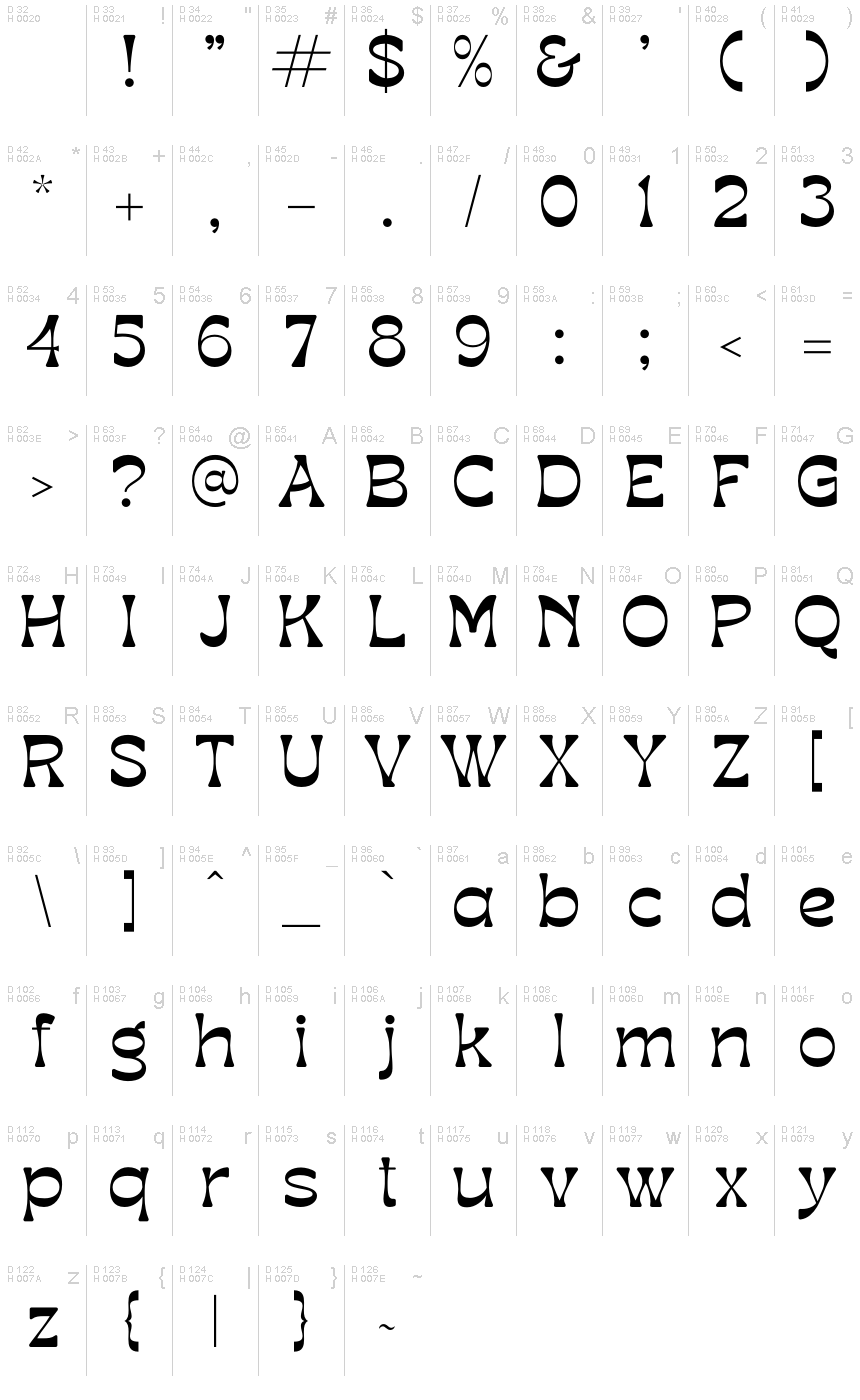
RONDKER THROME
Rondker Throme, a captivating display font crafted by Storytype Studio, exudes a distinct retro charm. With its bold, striking letterforms and a touch of vintage flair, this font embodies a sense of nostalgia and timeless appeal. The playful yet structured design invites attention, making it an alluring choice for projects seeking to capture a captivating, retro-inspired aesthetic.
Rondker Throme's versatility shines through, making it a compelling option for a wide range of design applications. From eye-catching headlines and impactful logos to bold signage and retro-themed branding, this font's unique character lends itself seamlessly to various creative endeavors. Its distinctive style can elevate the visual impact of projects, effortlessly transporting viewers to a bygone era while maintaining a contemporary edge.